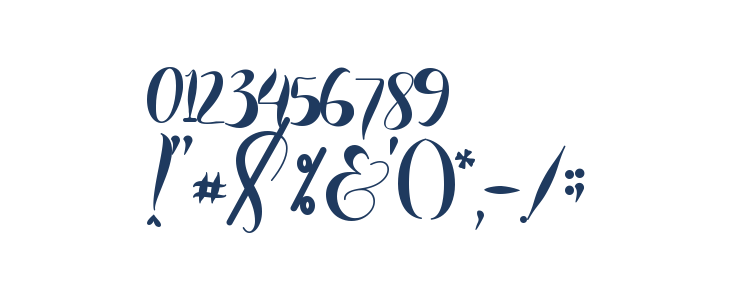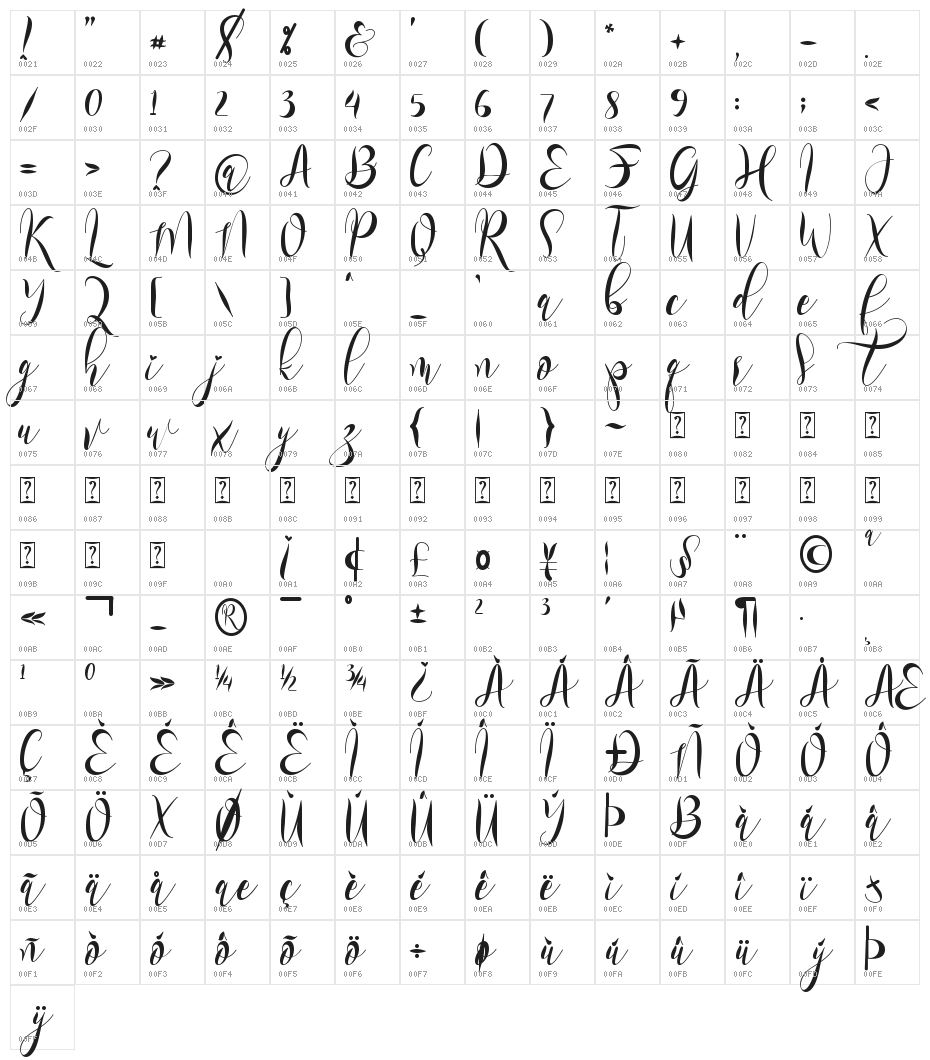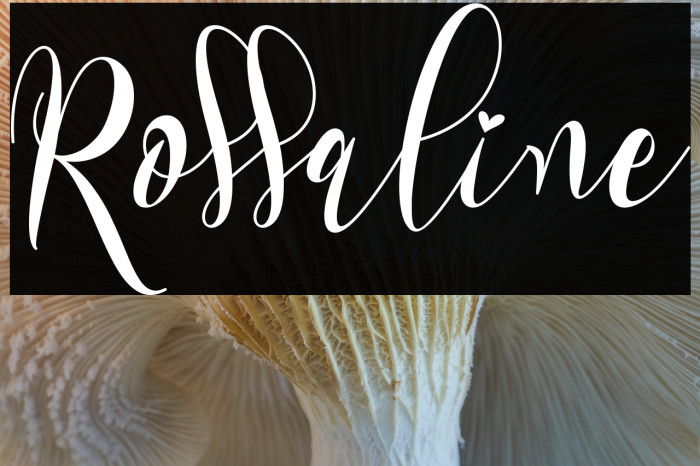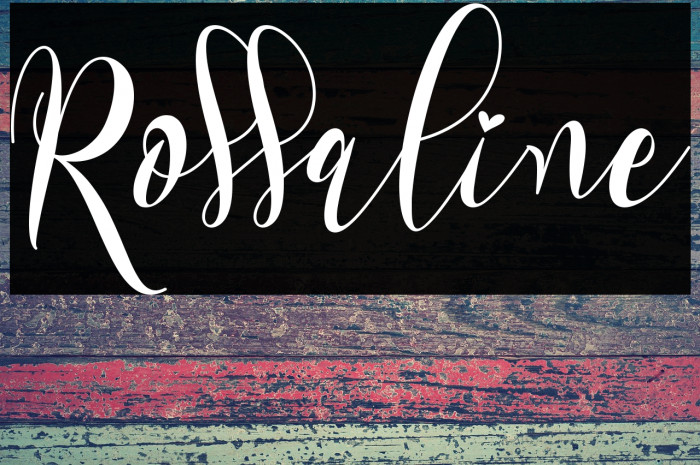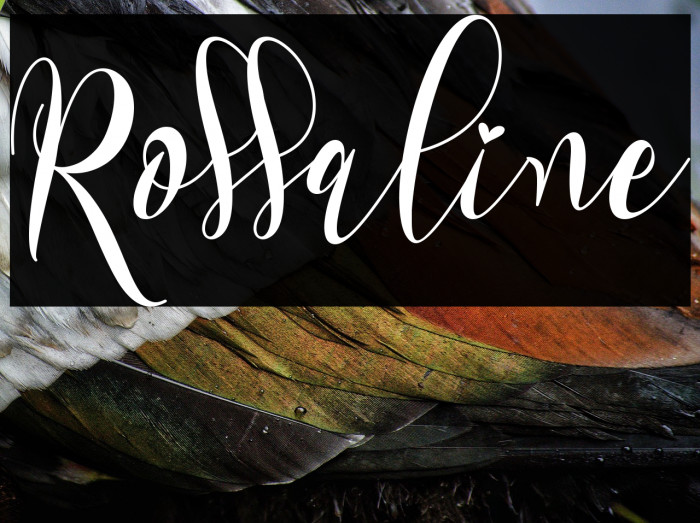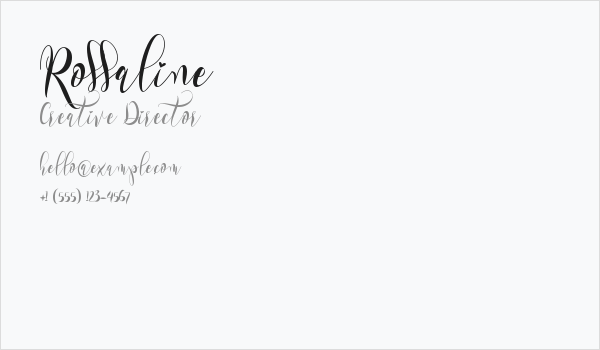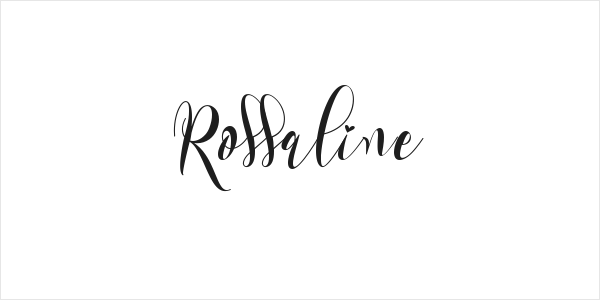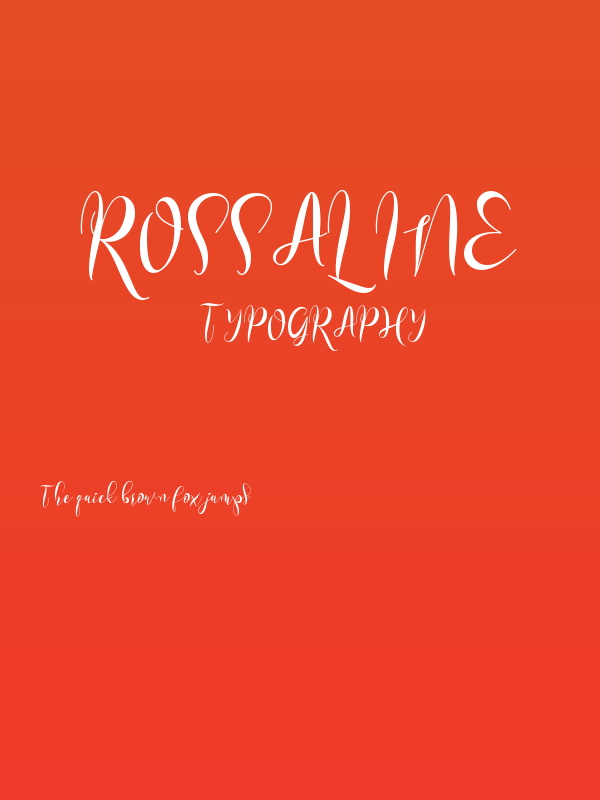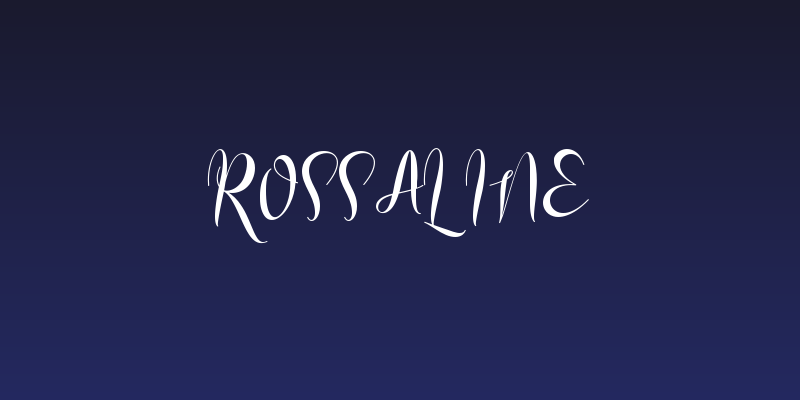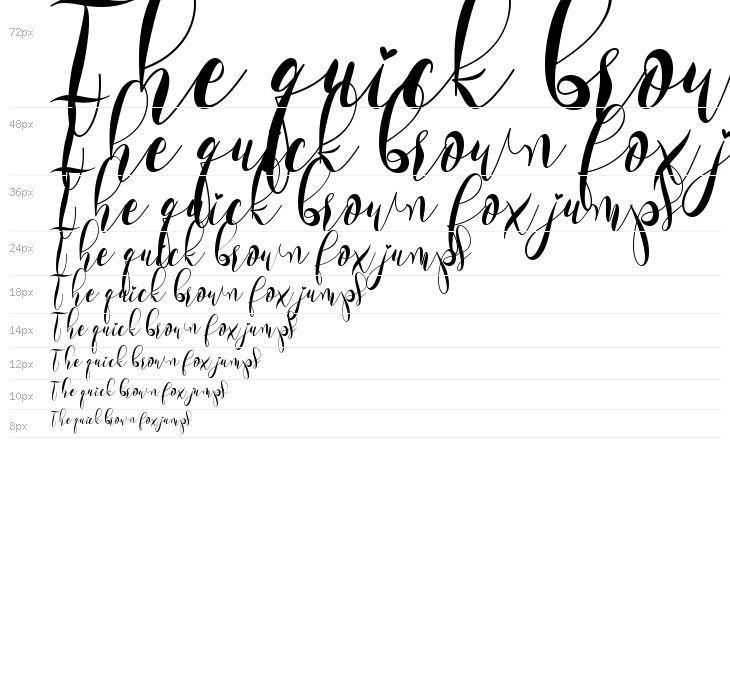
Rossaline Font
Rossaline Description
This elegant script font features a flowing, cursive style with a modern twist. The uppercase letters are bold and sweeping, with dramatic flourishes that add a touch of sophistication. The lowercase letters maintain a consistent flow, with delicate loops and curves that enhance its graceful appearance. The numerals are stylish and complement the overall aesthetic, while the special characters are thoughtfully designed to match the font's elegant theme. This font is perfect for projects that require a touch of elegance and style, such as wedding invitations, branding, and high-end product packaging.